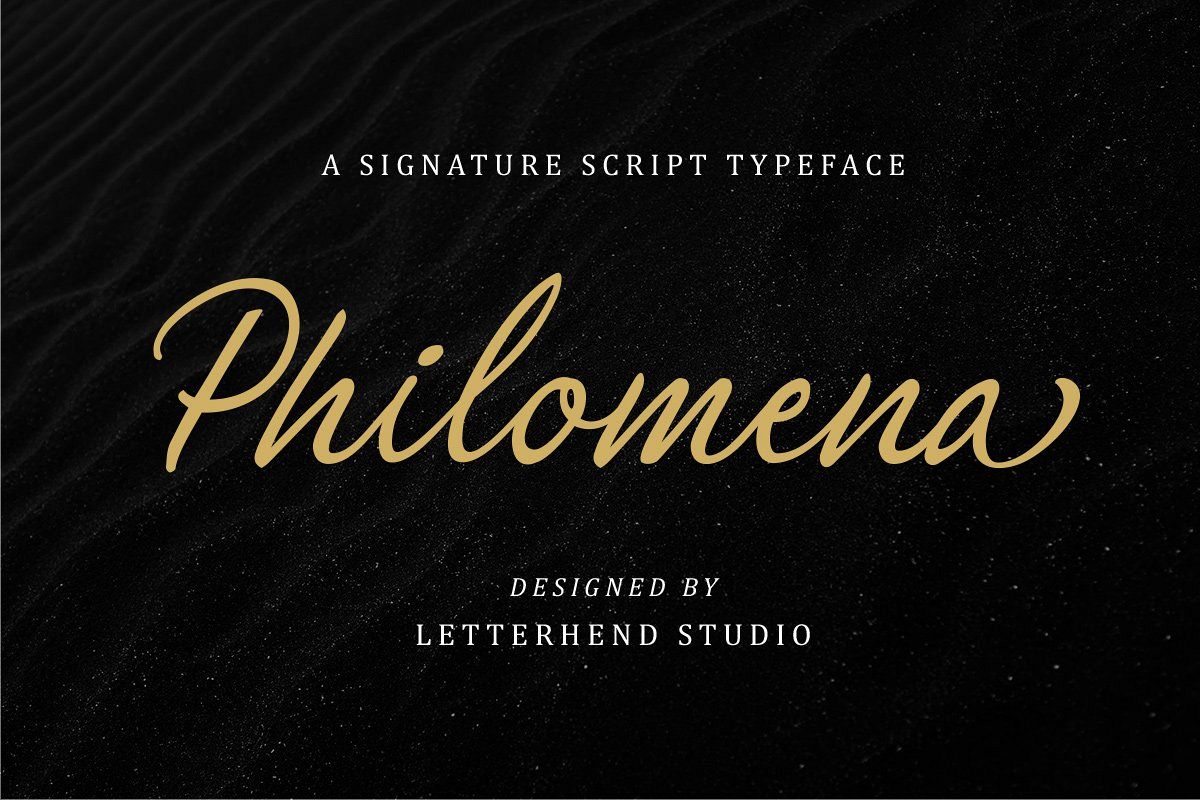
Philomena Signature Script
Philomena Script
Introducing,Philomena - a signature script typeface,that brings the classy and luxury look. The natural feel of the signature works perfect for you who needs a typeface for headline, logotype, apparel, invitation, branding, packaging, advertising etc. This typeface is comes in uppercase, lowercase, punctuation, symbols, numerals, stylistic set alternate, ligatures, etc also support multilingual.